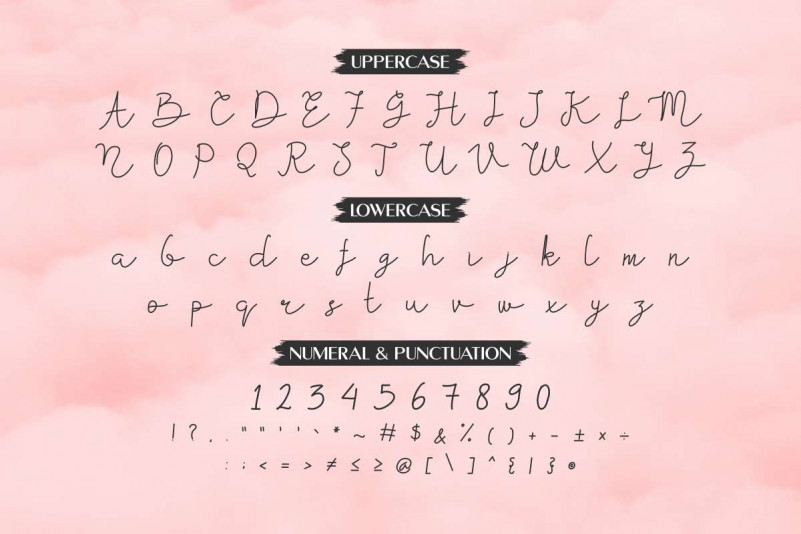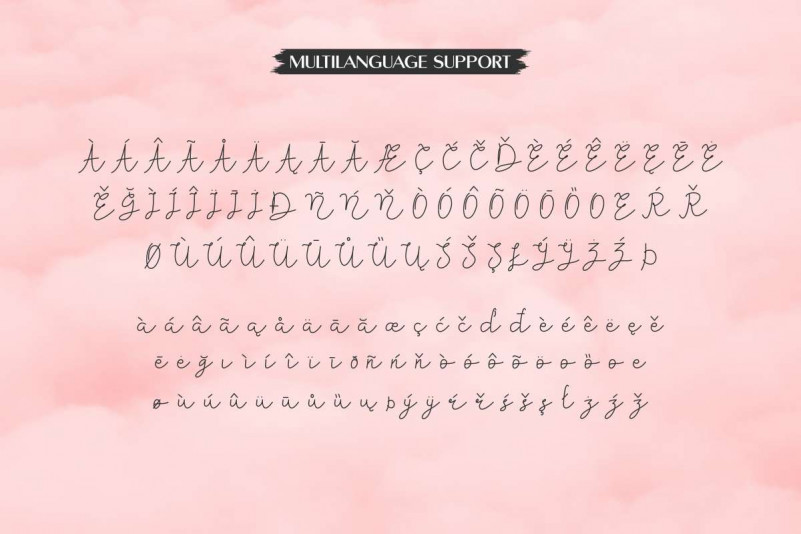
Kiarina Handwriting Font
Hey hey People! Please welcome our newest typeface : Kiarina Handwriting Font! This is a new script handwritten style font. It has a beautiful and natural glyphs. Will be awesome for any designs projects.